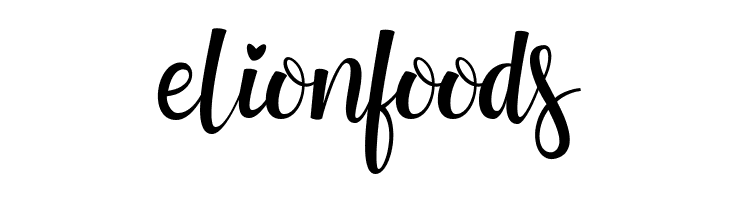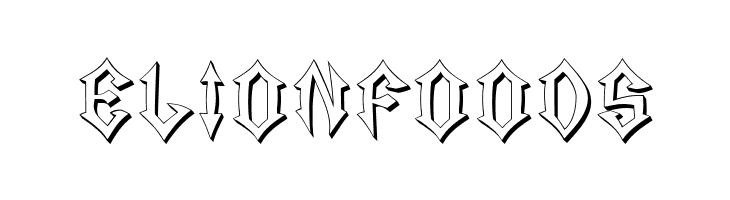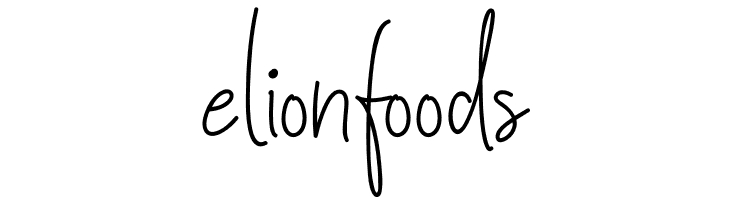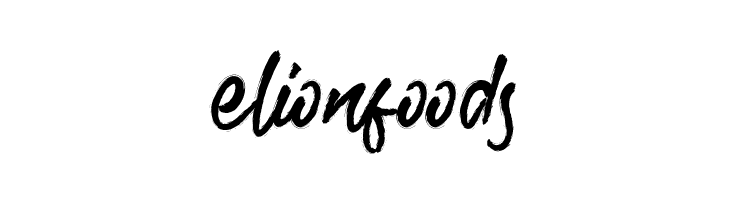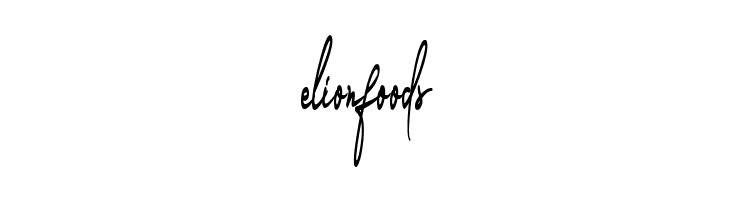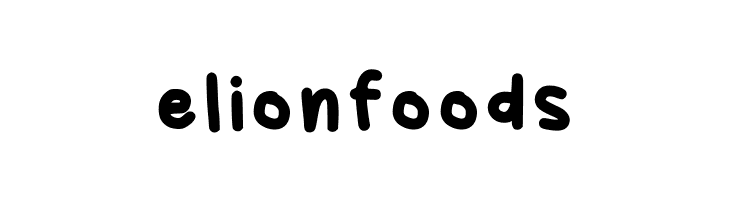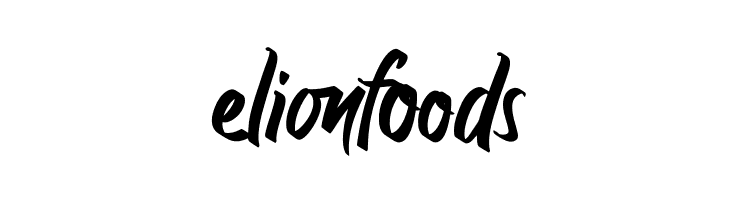
A dynamic and elegant script font with flowing, cursive letterforms.
A bold, gothic-inspired font with sharp, angular edges.
A bold, gothic-inspired font with sharp, angular lines and dramatic flair.
A bold, angular font with a gothic, dramatic style.
An ornate and decorative font with a vintage gothic style.
A playful, handwritten font with elongated, irregular characters.
A dynamic, expressive handwritten font with fluid cursive letterforms.
An elegant cursive font with decorative swirls and loops.
A playful, casual handwritten font with rounded, consistent strokes.
A bold, expressive handwritten font with dynamic strokes.